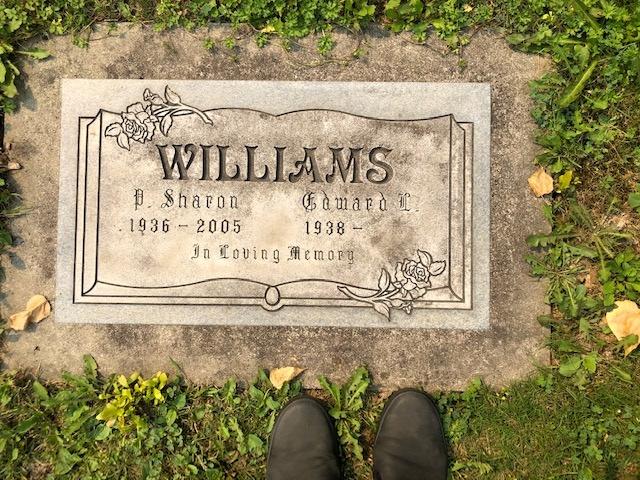
Old English and Last name font
Can anyone identify these 2 fonts?Williams
Hello Kim, the font used for the surname is Victorian: https://www.myfonts.com/fonts/itc/victorian/
The font used for the name and dates is called Old English Sandblast in Monu-Cad, and Monument Gothic Regular in Flexi-Sign. It is based on hand lettering from the lettering section of the American Monument Association’s 1982 book Symbols: The Universal Language. There are currently no versions available for purchase in the standard font formats, but the MLC has plans to eventually create one.